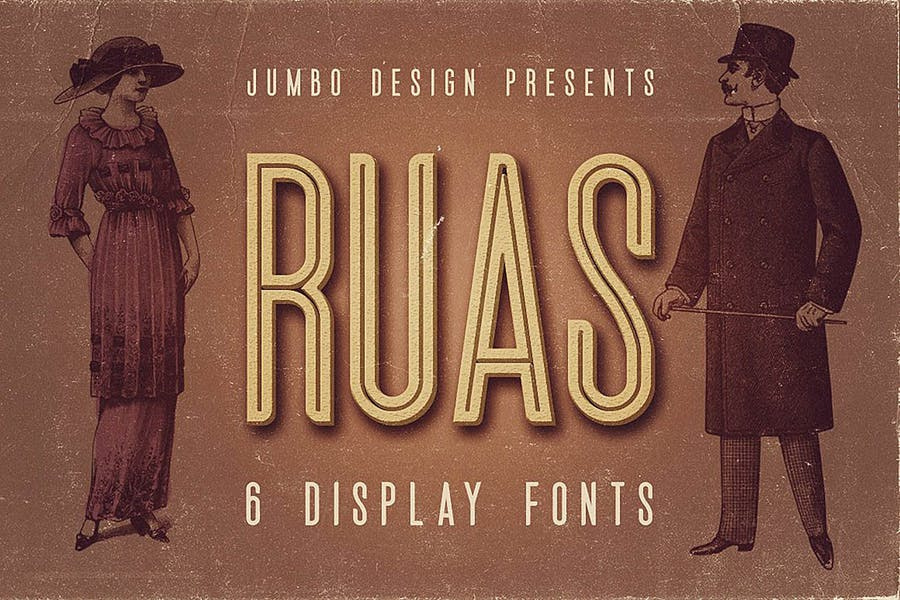
Ruas - Vintage Style Font
Ruas - Vintage Style Font is perfect for retro branding projects, vintage logo design, classic poster layouts, antique shop signage, nostalgic packaging design, old-fashioned restaurant menus, historical museum displays, heritage brand identity, classic car advertisements, vintage clothing labels, retro magazine covers, and nostalgic wedding invitations.
Ruas - Vintage Style Font is exciting because it authentically captures the charm and character of bygone eras with meticulously crafted letterforms that transport viewers back in time, while offering modern designers the perfect tool to create nostalgic experiences that resonate with contemporary audiences seeking authentic vintage appeal.
The Ruas - Vintage Style Font family includes classic variations: Regular, Bold, Distressed, Outline, Shadow, and Aged styles, providing designers with comprehensive options to create authentic period-appropriate typography that tells compelling stories of craftsmanship and tradition.
Journey back in time with Ruas - Vintage Style Font Free Download. This captivating retro typeface brings the timeless appeal of classic American typography to modern design projects. Whether you're creating branding for artisanal businesses, designing promotional materials for vintage events, or developing nostalgic marketing campaigns, Ruas - Vintage Style Font delivers authentic period character with contemporary functionality.
The font's carefully researched letterforms reflect the golden age of hand-lettered signage and traditional craftsmanship, with subtle imperfections and organic details that speak to human artistry. Each character carries the weight of historical authenticity while remaining perfectly legible across all modern applications and digital platforms.
Ruas - Vintage Style Font excels in creating powerful brand identities for businesses that value tradition, quality, and authentic craftsmanship. Its authoritative presence commands attention on packaging, signage, and marketing materials, while its approachable character makes it suitable for everything from craft breweries to vintage furniture stores.
Professional designers appreciate how Ruas - Vintage Style Font maintains historical accuracy without becoming a mere novelty typeface. The balanced proportions and thoughtful spacing ensure excellent performance in both large display applications and smaller text blocks, making it versatile enough for complete brand systems.
This remarkable typeface brings instant credibility to heritage brands, artisanal products, and businesses celebrating traditional values. Ruas - Vintage Style Font creates emotional connections with audiences who appreciate history, craftsmanship, and the enduring appeal of classic design.